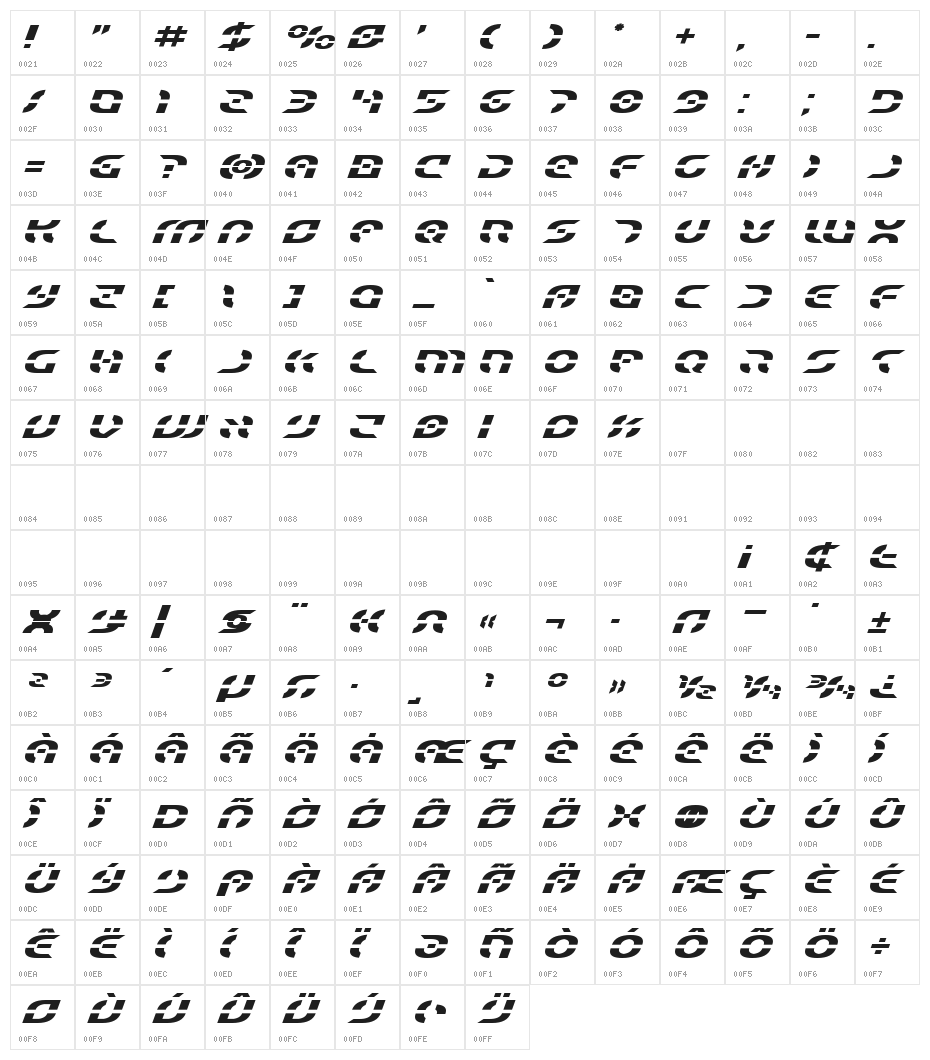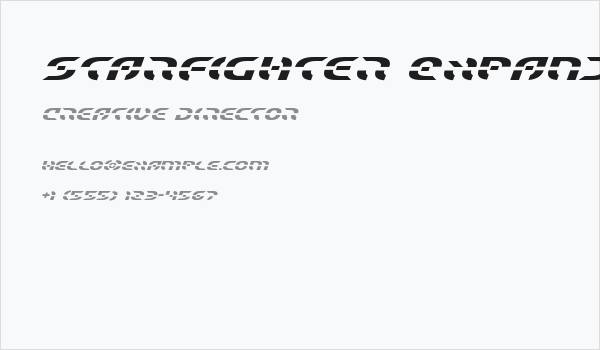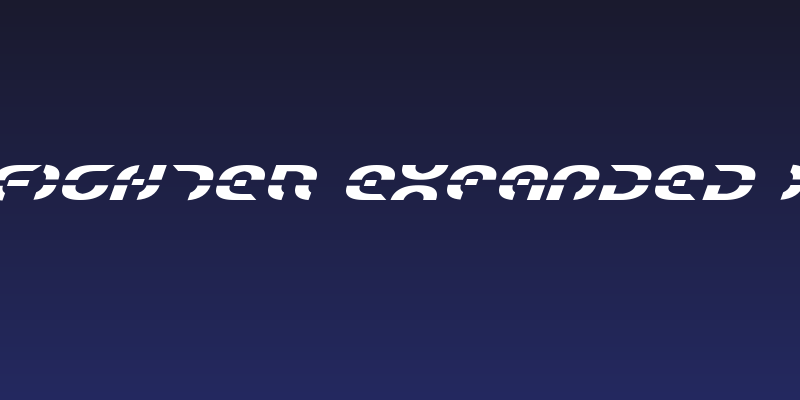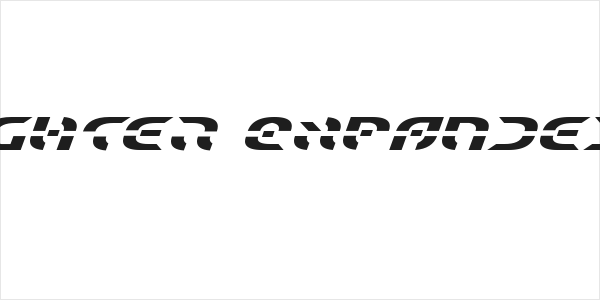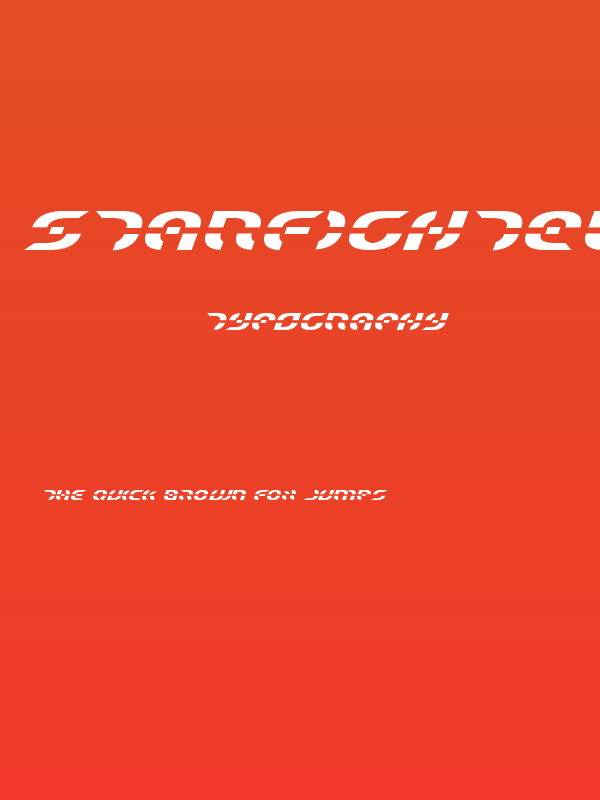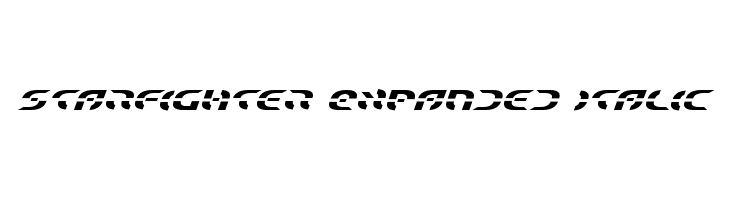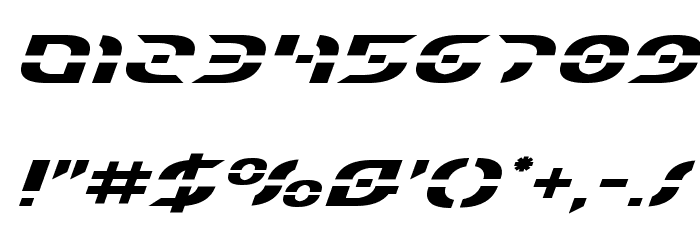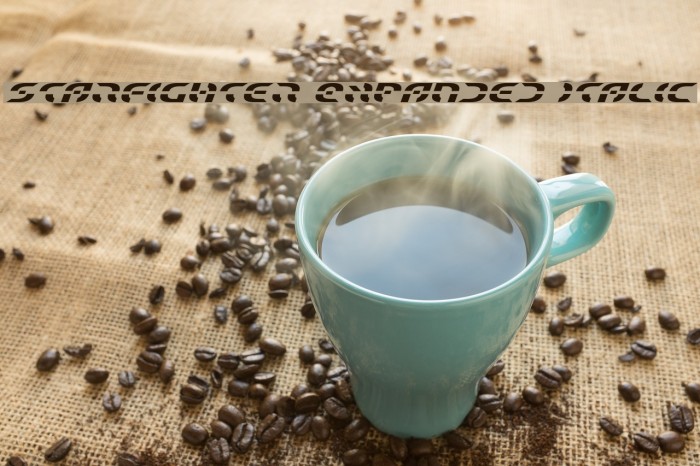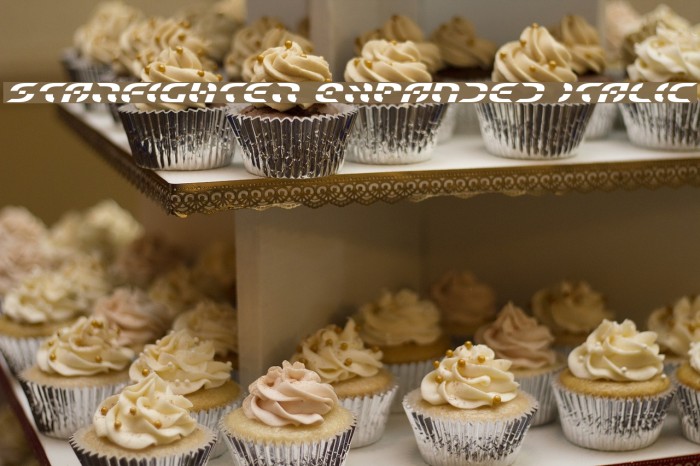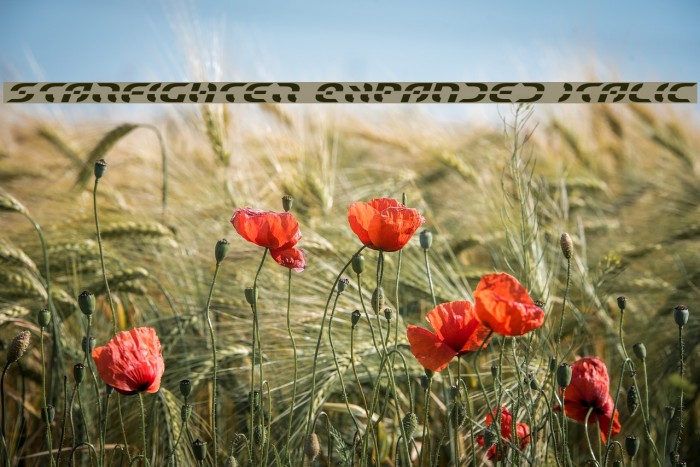
Starfighter Expanded Italic Font
This font features a futuristic and dynamic design with a distinctly italicized and expanded style. The characters are composed of bold, angular shapes with sharp edges and a unique cut-out pattern that gives a sense of movement and speed. The uppercase and lowercase letters maintain a consistent style, with a strong emphasis on horizontal lines and geometric forms. Numbers and special characters follow the same design principles, ensuring uniformity across the font. The overall appearance is sleek and modern, making it suitable for projects that require a high-tech or sci-fi aesthetic.
| Proposed Projects | Ideal for sci-fi themed designs, video game titles, movie posters, and technology branding. |